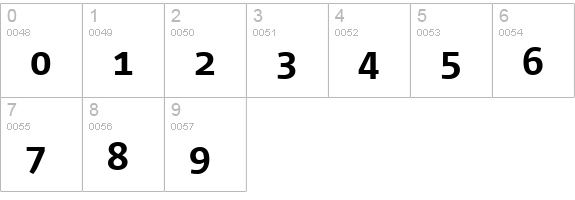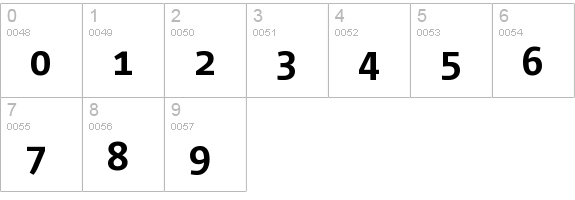
CorpidOffice Bold Font Details
CorpidOffice Bold is a strong, high-contrast variant in the CorpidOffice typeface family \xE2\x80\x94 well suited to headlines, attention-grabbing titles, and strong calls-to-action.
CorpidOffice Bold font is a sleek and modern typeface designed to make a bold statement in any design project. With its strong and confident appearance, this font is perfect for headers, titles, and other prominent text elements. The clean lines and sharp angles of CorpidOffice Bold exude professionalism and sophistication, making it an ideal choice for corporate branding, advertising, and editorial design. What sets CorpidOffice Bold apart is not just its striking design, but also its accessibility. This versatile font is available for free download at FontsMarket.com, making it easy for designers of all levels to access and utilize in their projects. Whether you're working on a website, brochure, poster, or any other creative endeavor, CorpidOffice Bold is sure to add a touch of elegance and impact to your typography. Elevate your designs with CorpidOffice Bold and make a lasting impression on your audience.